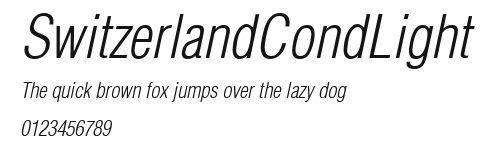
SwitzerlandCondLight Preview
• Font Name: SwitzerlandCondLight
• Font ID: SwitzerlandCondLight Italic
• Full Font Name: SwitzerlandCondLight Italic
• PostScript Name: SwitzerlandCondLightItalic
• Character Count: 260
About SwitzerlandCondLight.ttf
SwitzerlandCondLight.ttf is a modern, elegant sans-serif font designed for ultimate readability and visual harmony. Perfect for branding, headlines, web design, and print materials.